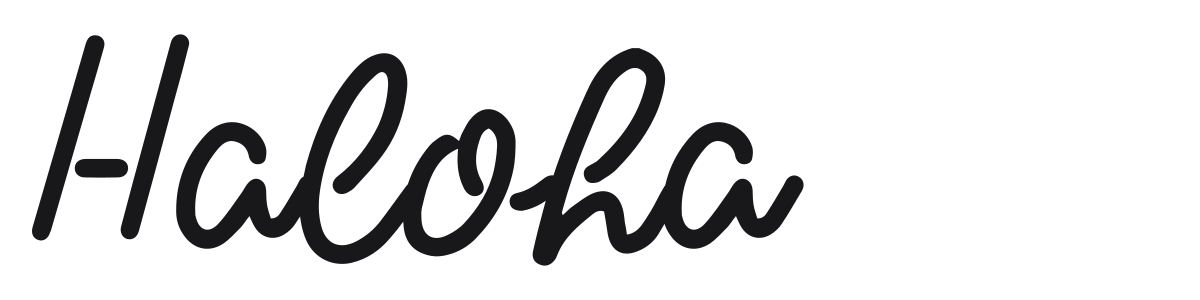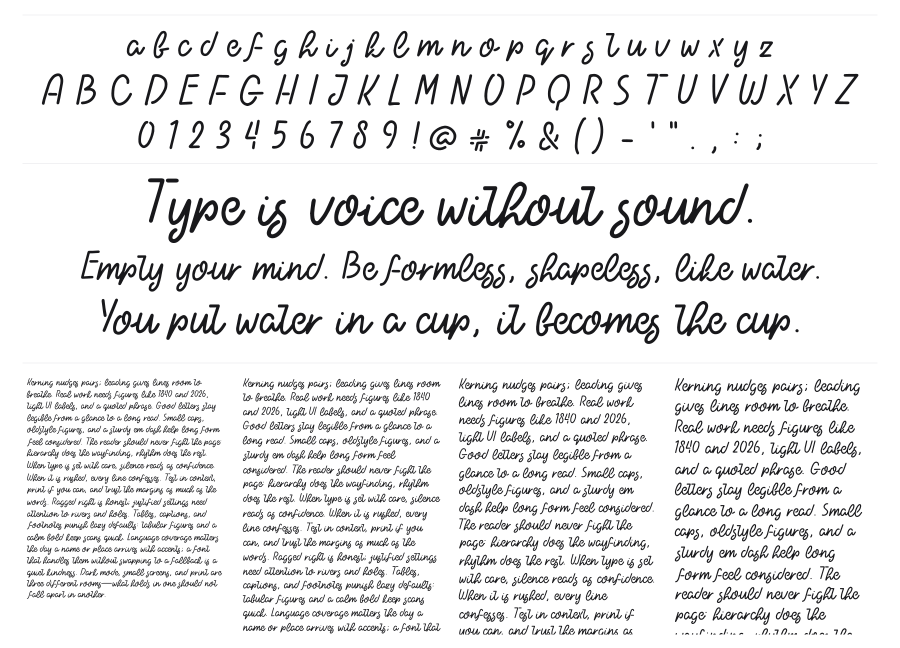
Haloha
Haloha is a monoline casual script with flowing connected characters and an easy, handwritten rhythm. The near-even stroke weight and smooth curves give it a relaxed, summery feel that reads as natural rather than formal. It works well at large sizes for logos, labels, and social media graphics.